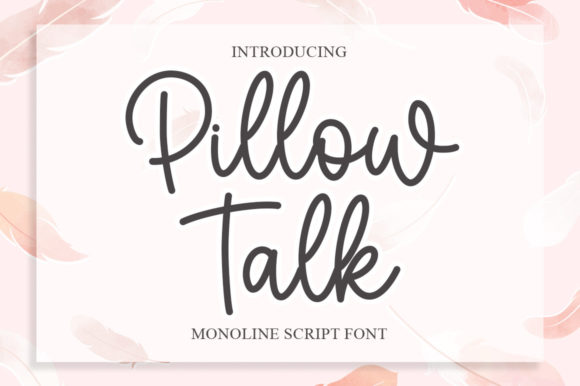
Pillow Talk Font: The Ultimate Guide to This Dainty and Flowing Handwritten Font
If you’re looking for a font that exudes romance, sweetness, and joy, then look no further than the Pillow Talk font. This beautiful, handwritten font is perfect for adding a personal touch to your wedding invitations, cards, and other designs. In this article, we’ll take a closer look at the Pillow Talk font, its features, and how you can use it to elevate your designs.
What is Pillow Talk Font?
Pillow Talk is a dainty and flowing handwritten font that is designed to add a touch of elegance and romance to your designs. This font is perfect for creating beautiful wedding invitations, cards, and other designs that require a personal touch. With its sweet and joyful feel, Pillow Talk is sure to capture the hearts of your audience.
Features of Pillow Talk Font
So, what makes Pillow Talk font so special? Here are some of its key features:
- Dainty and Flowing Design: Pillow Talk font has a delicate and flowing design that gives it a romantic and elegant feel.
- Handwritten Style: This font has a handwritten style that makes it perfect for adding a personal touch to your designs.
- Sweet and Joyful: The font has a sweet and joyful feel that makes it perfect for wedding invitations, cards, and other designs.
Benefits of Using Pillow Talk Font
So, why should you use Pillow Talk font for your designs? Here are some benefits:
- Adds a Personal Touch: Pillow Talk font adds a personal touch to your designs, making them more special and meaningful.
- Perfect for Wedding Invitations: This font is perfect for creating beautiful wedding invitations that will make your guests feel special.
- Easy to Use: Pillow Talk font is easy to use, even for those who are new to designing.
- Versatile: This font can be used for a variety of designs, including cards, invitations, and more.
In conclusion, Pillow Talk font is a beautiful and elegant handwritten font that is perfect for adding a personal touch to your designs. With its sweet and joyful feel, this font is ideal for wedding invitations, cards, and other designs. Whether you’re a designer or a DIY enthusiast, Pillow Talk font is a great choice for your next project.
- What is Pillow Talk font?: Pillow Talk font is a dainty and flowing handwritten font that is designed to add a touch of elegance and romance to your designs.